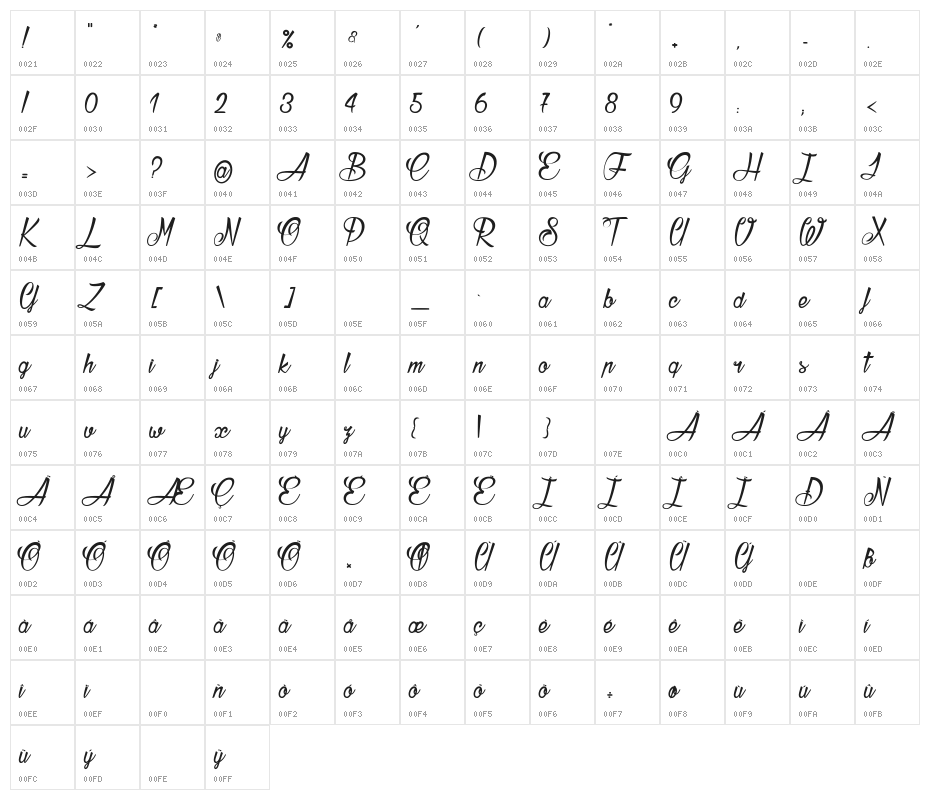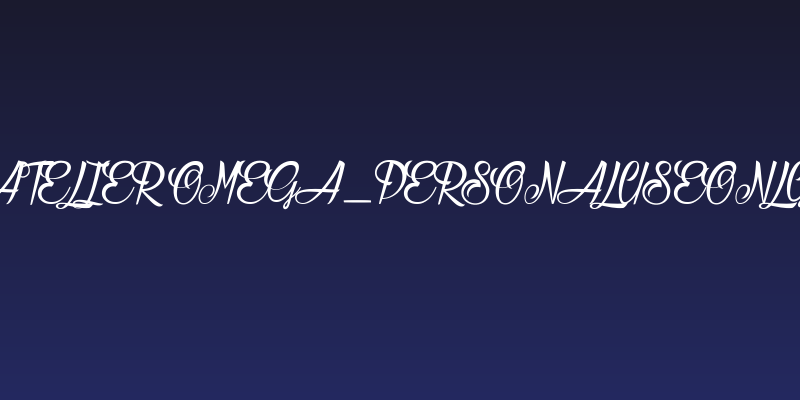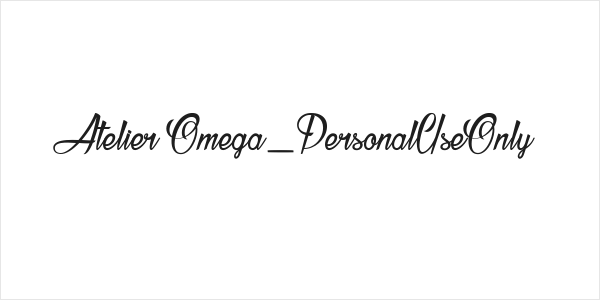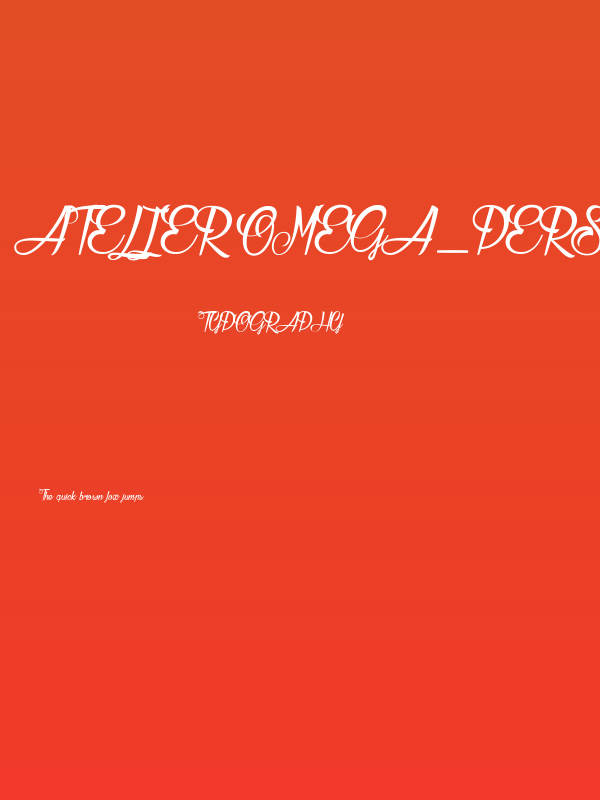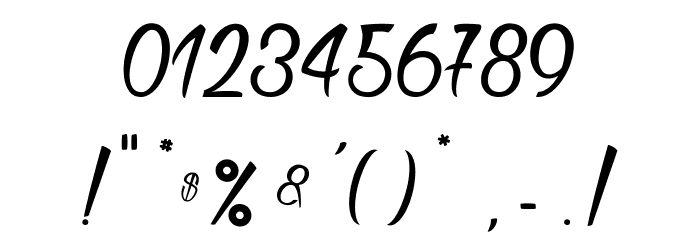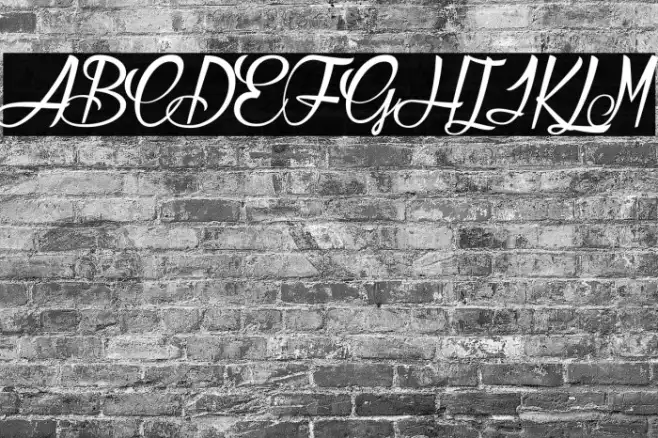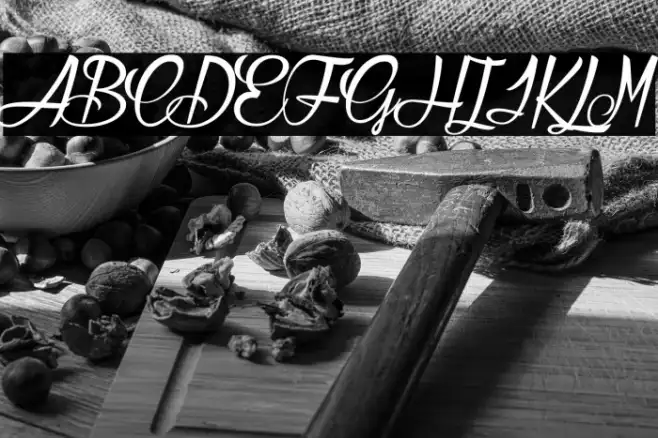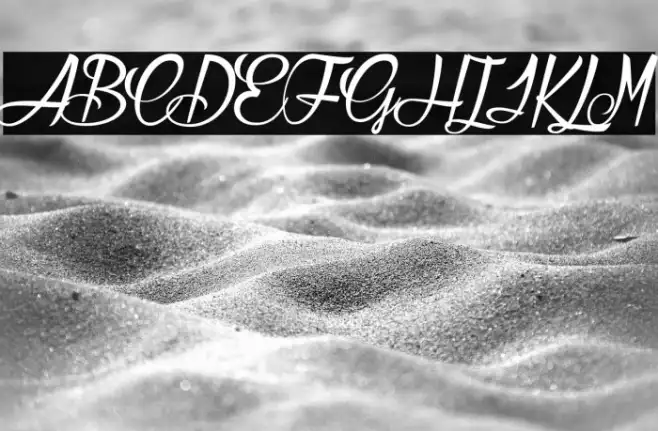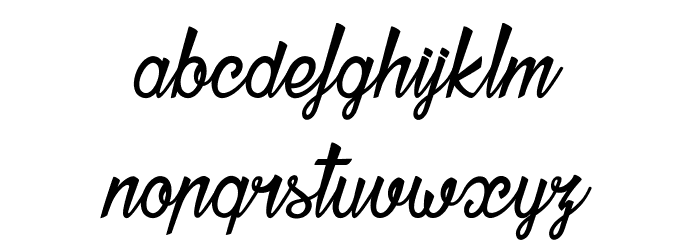
Atelier Omega_PersonalUseOnly Font
Atelier Omega_PersonalUseOnly Description
This font features an elegant and flowing script style, characterized by its intricate and decorative letterforms. The uppercase letters are particularly ornate, with sweeping curves and loops that give them a sense of movement and sophistication. The lowercase letters maintain a more restrained yet still stylish appearance, complementing the uppercase with a harmonious balance. The numerals are clear and legible, while the special characters retain the decorative flair of the alphabet. This font exudes a sense of luxury and refinement, making it suitable for high-end design projects.
| Use Case | Headlines, Invitations, Branding |
| Proposed Projects | Ideal for wedding invitations, luxury branding, elegant packaging, and decorative headlines. |